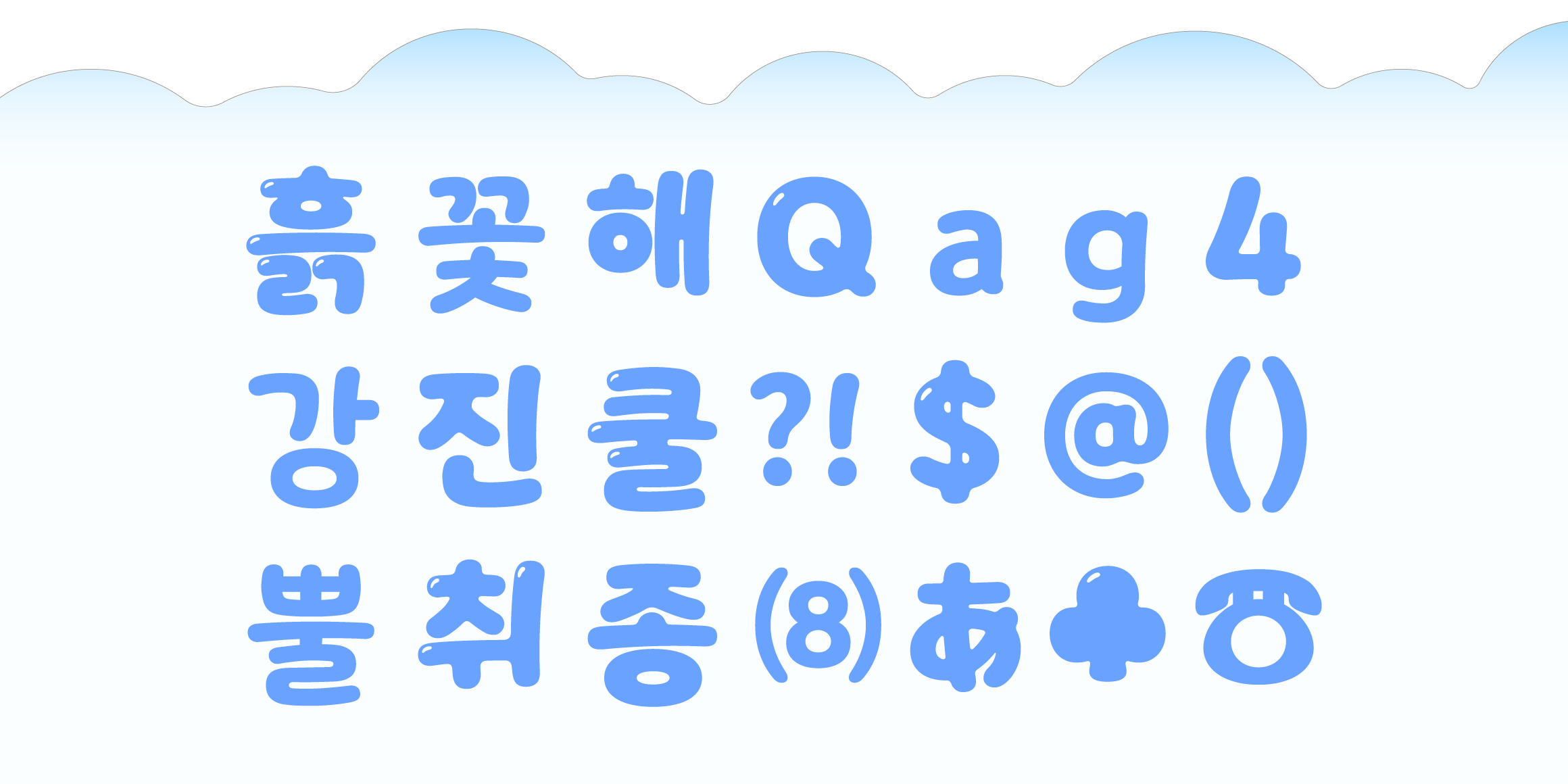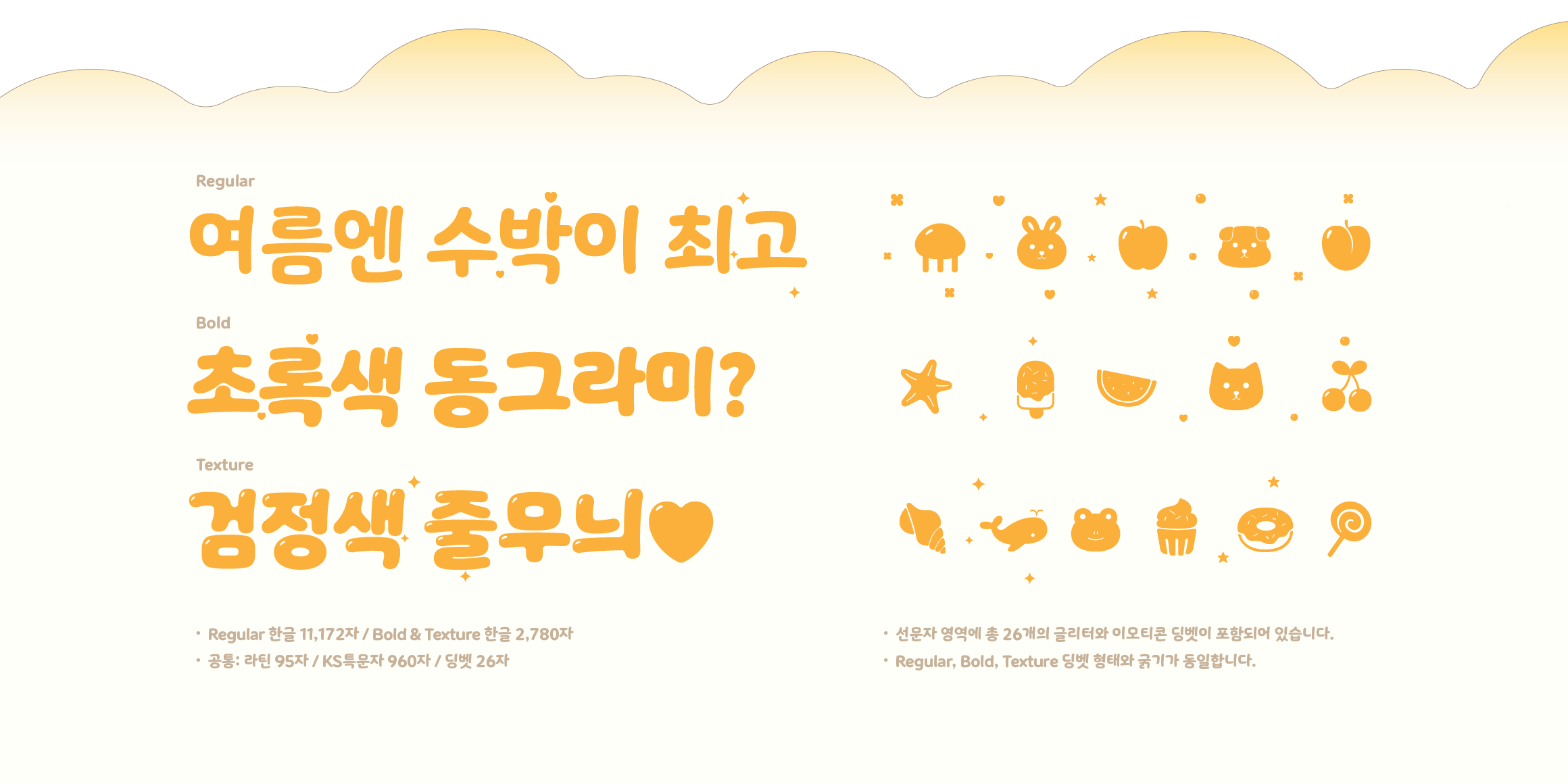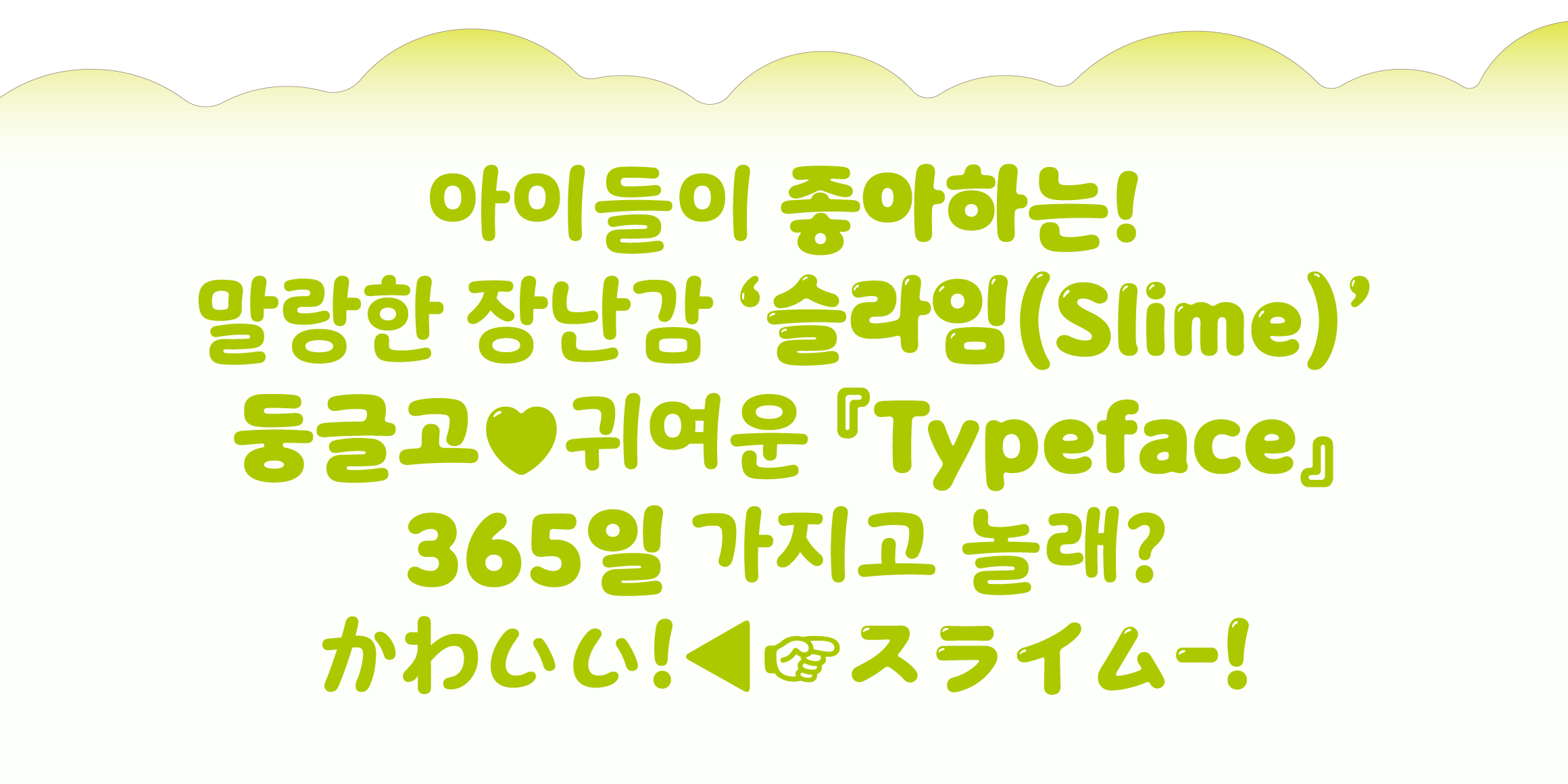
Yoon SoftSlime
Yoondesign
“Yoon SoftSlime” is a font based on the concept of children's toy slime. It was designed for the Alpha generation, who are familiar with mobile devices such as YouTube and streaming services, and consists of Regular, which is suitable for subtitles, Bold, which is suitable for titles, and Texture. It is a cute and lively font with a round, handwritten feel.
*Regular style supports Hangul 11,172 glyphs.